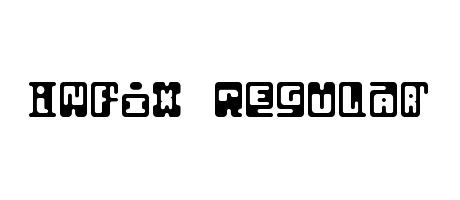
Infix
By Christian Munk
Infix Regular is a bold, geometric sans-serif typeface. Its characters are blocky and uniformly thick, giving it a sturdy, almost monolithic feel. The letterforms are tightly spaced, creating a compact and dense appearance. It evokes a sense of strength and simplicity, hinting at digital or industrial design aesthetics.